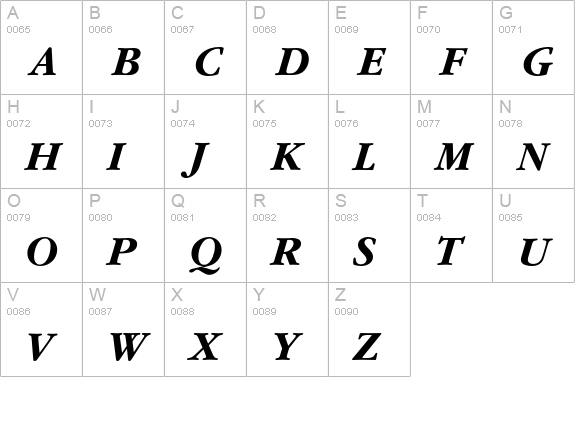
GaramondEF-BoldItalic is a stunning font that effortlessly combines the timeless elegance of Garamond with a bold and italic twist. This font is perfect for adding a touch of sophistication to any design project, whether it's for print or digital media. The GaramondEF-BoldItalic font features beautifully crafted letterforms that exude confidence and style. The bold weight adds a strong and impactful presence, while the italic slant lends a sense of dynamic movement. This combination creates a visually striking and unique aesthetic that will captivate your audience. One of the most impressive aspects of GaramondEF-BoldItalic is that it is freely available to download at FontsMarket.com. This means that you can easily access this exquisite font without any cost, making it an ideal choice for designers and creatives on a budget. With its wide range of glyph options and versatile nature, GaramondEF-BoldItalic can be used for a variety of design applications. Whether you're working on a logo, branding materials, editorial layouts, or even website design, this font will elevate your work to new heights. The attention to detail in GaramondEF-BoldItalic is truly remarkable. Each letterform has been meticulously crafted to ensure seamless legibility and readability, even at smaller sizes. The consistent stroke widths and balanced proportions make this font a joy to work with. In conclusion, GaramondEF-BoldItalic is a remarkable font that effortlessly combines boldness and elegance. Its freely available nature at FontsMarket.com makes it an accessible choice for designers who want to add a touch of sophistication to their projects. Download GaramondEF-BoldItalic today and let your creativity soar.